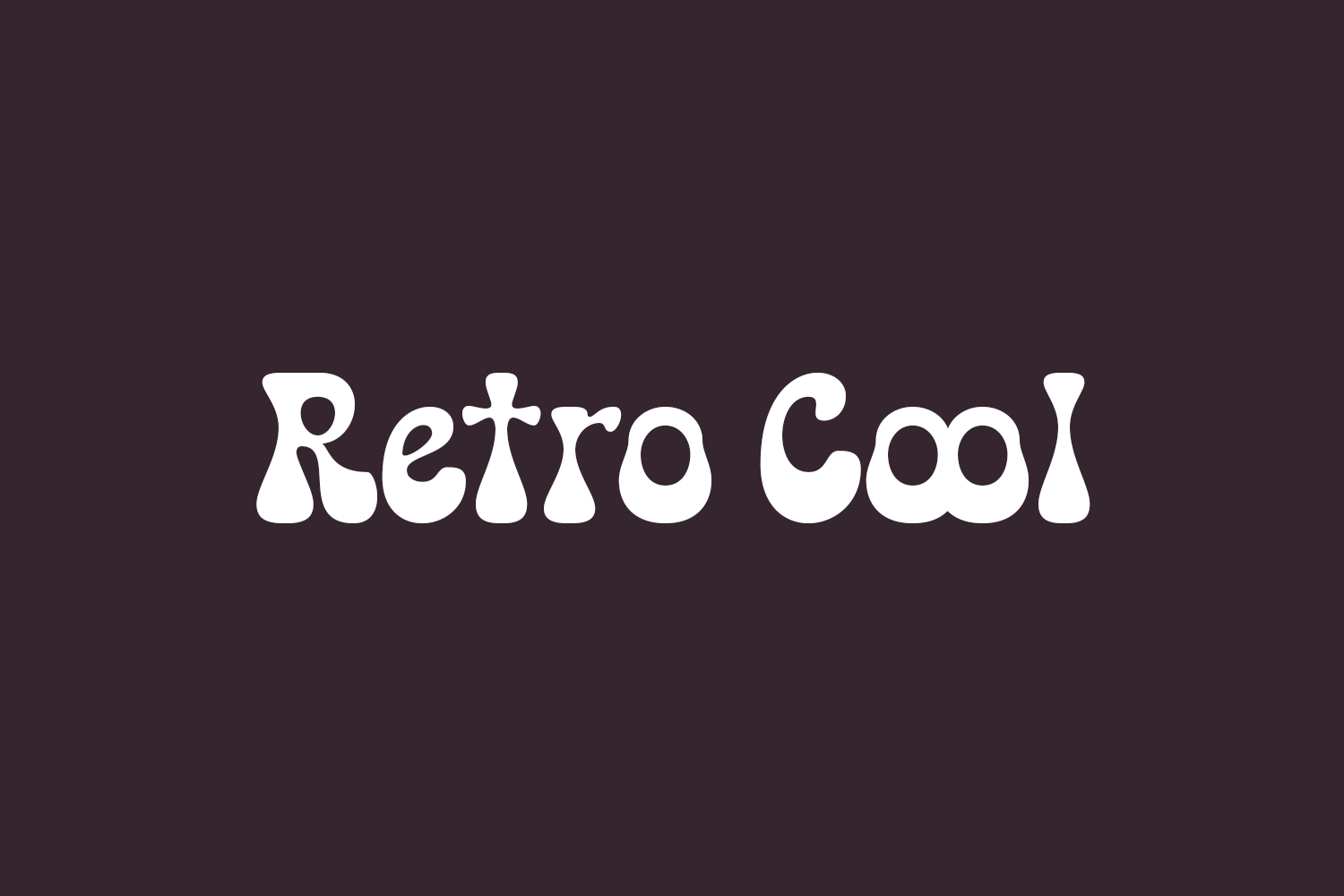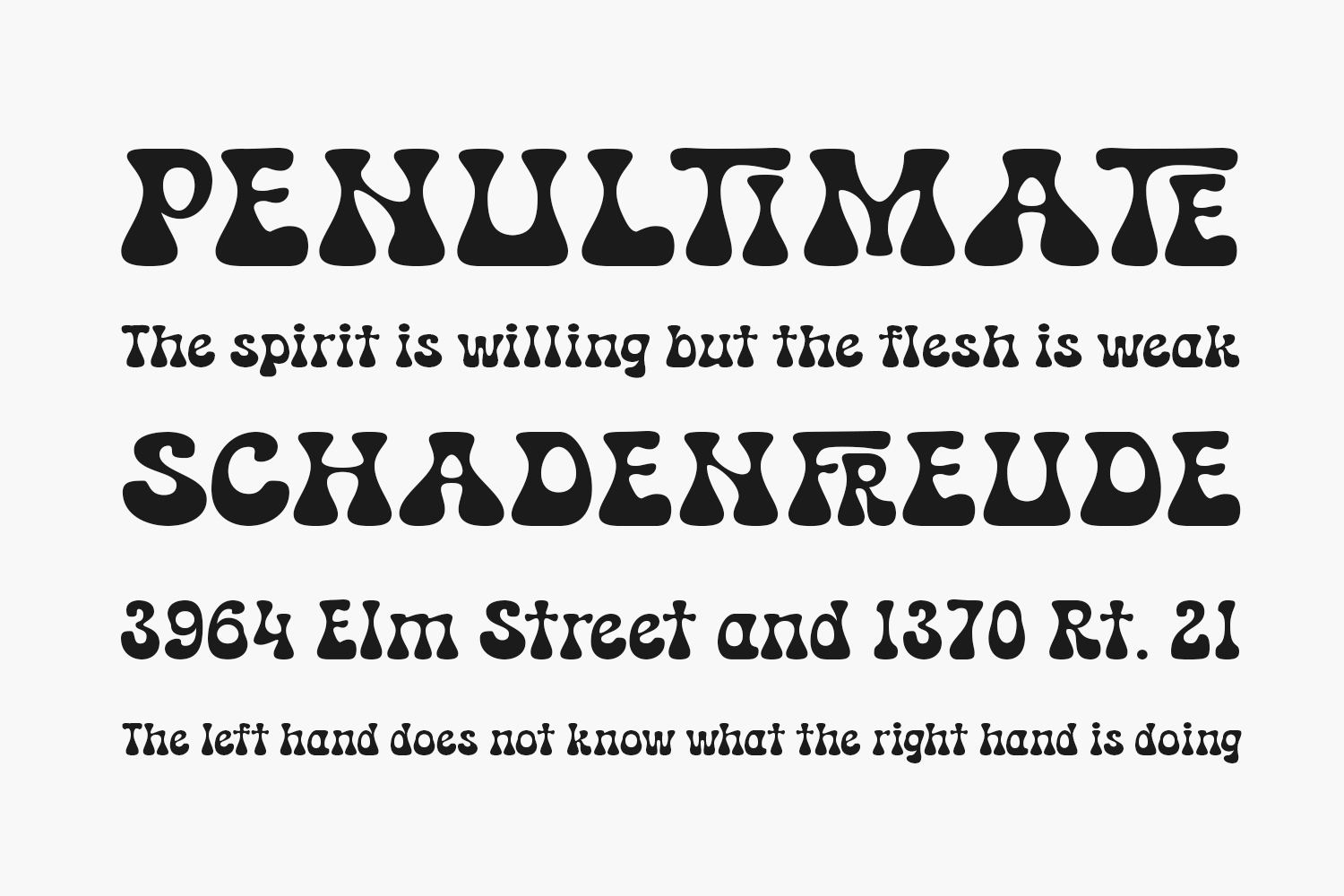
Retro Cool Free Font, an avant-garde serif display font, draws inspiration from the captivating 70s-80s Era. It delivers an exquisite typographic balance, making it a perfect choice for a wide range of design ventures including logos, branding, social media posts, ads, product designs, and beyond! Unleash your creativity with Retro Cool and infuse your projects with a touch of nostalgic charm. Retro Cool Free Font is free for personal use only. Please purchase the full version for commercial use.